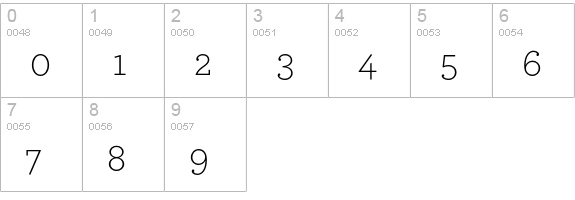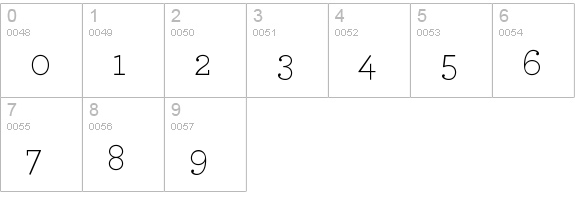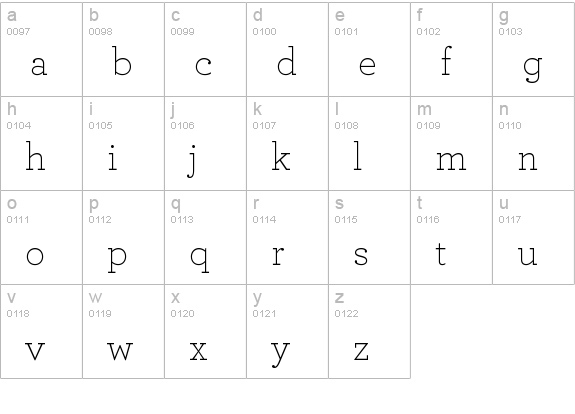
ArcherPro Light is a refined, elegant variant in the ArcherPro typeface family \xE2\x80\x94 well suited to elegant body text, refined sub-headings, and luxury branding.
ArcherPro Light font is a sleek and modern typeface that exudes elegance and sophistication. With its clean lines and balanced proportions, this font is perfect for a wide range of design projects, from branding to editorial design. The ArcherPro Light font is versatile and easy to read, making it ideal for both print and digital applications. The best part is that ArcherPro Light font is completely free to download at FontsMarket.com. This means that you can add this stylish font to your collection without any cost, making it a valuable addition to your design toolkit. Don't miss out on the opportunity to enhance your projects with the timeless beauty of ArcherPro Light font - download it today and elevate your designs to the next level.